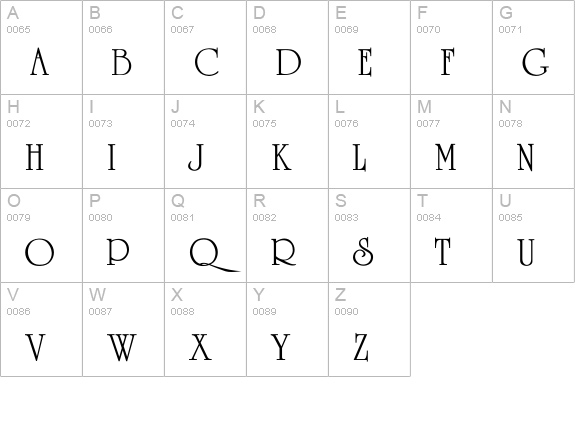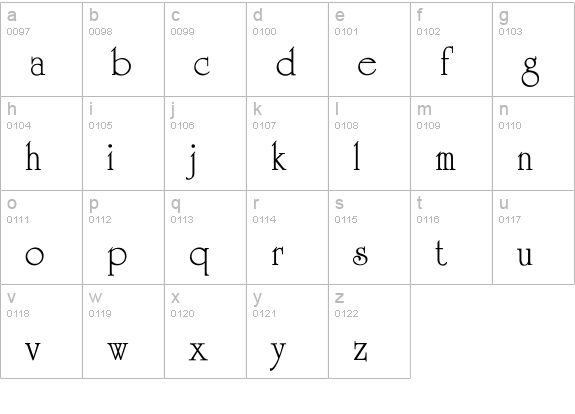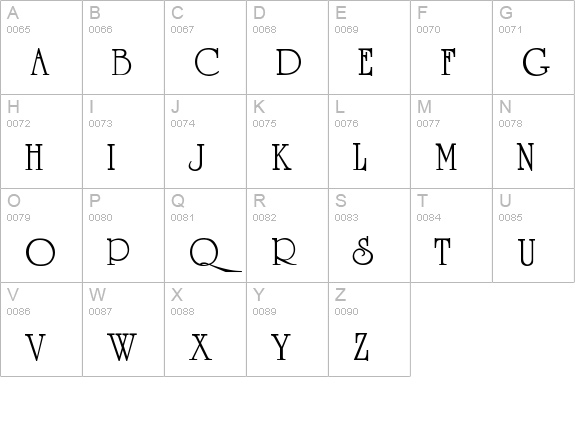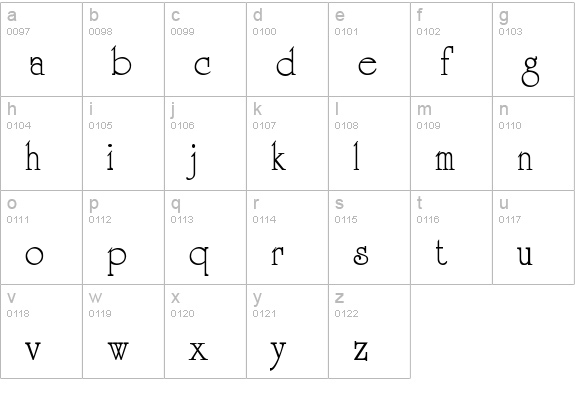
University-Roman-Normal is the standard, neutral variant in the University typeface family \xE2\x80\x94 well suited to general body text, paragraphs, and standard typographic work.
University-Roman-Normal is a timeless font that captures the essence of academic excellence and sophistication. With its clean and elegant design, it exudes a sense of professionalism and prestige, making it perfect for a wide range of projects and purposes. This font features perfectly balanced letterforms, with sharp serifs that add a touch of classic sophistication. Its generous x-height ensures legibility even at smaller sizes, making it ideal for body text in both print and digital mediums. Whether you're designing a professional resume, creating a captivating presentation, or crafting an impressive logo, University-Roman-Normal will elevate your work to new heights. The best part? University-Roman-Normal is available for free download at FontsMarket.com. This means that you can enjoy the benefits of this exceptional font without any cost or limitations. Whether you're a student, a professional, or a design enthusiast, you can freely access this font and add it to your collection. By downloading University-Roman-Normal, you not only gain a versatile and elegant font but also join a community of designers who appreciate its beauty and functionality. Its timeless design ensures that it will remain relevant and impactful for years to come, making it a valuable addition to any designer's toolkit. So why wait? Head over to FontsMarket.com and download University-Roman-Normal for free today. Unleash your creativity and elevate your designs with this exceptional font.